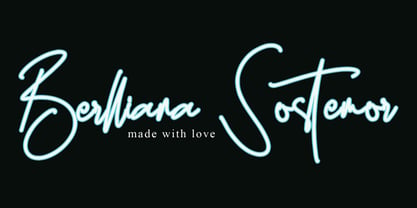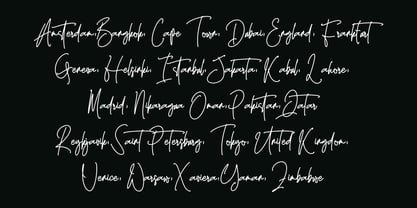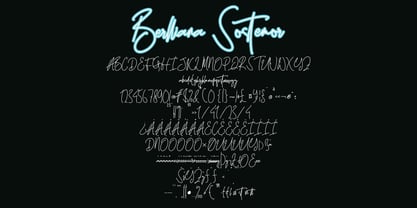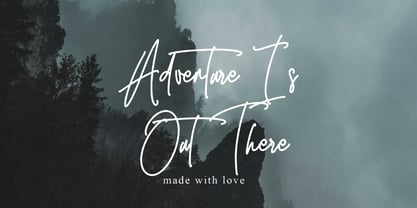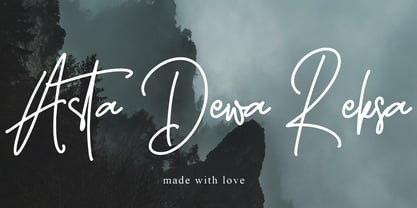
Berllianha Sostemhor
by Ayska
The Berllianha Sostemhor Font Family was designed by Dhoni Trihatmoko and published by Ayska. Berllianha Sostemhor contains 1 styles. More about this family
Introducing Berllianha Sostemhor, an enchanting fusion of modern sophistication and the delicate beauty of handwritten correspondence. This one-of-a-kind font, meticulously crafted by hand, radiates a unique and dignified charm that perfects any digital creation. Versatile in its allure, Berllianha Sostemhor's singular enchantment can engage audiences on your blog, infuse character into your digital planner, add a personal touch to your invites, or articulate heartfelt messages in your greeting cards. Revel in the timeless appeal and creative prowess of Berllianha Sostemhor as it amplifies the allure of your photo albums or customizes your decor. With its inherent power to transform the mundane into spellbinding visuals, this remarkable font adds an extra touch of magic to your digital artistry. Surrender to the promise of Berllianha Sostemhor as your creative compass, guiding you on a spectacular journey of memorable creations. Dive into the artistically inspiring world of Berllianha Sostemhor, and let your creative imagination unfurl into exquisite pieces of digital art.
Designers: Dhoni Trihatmoko
Foundry: Ayska